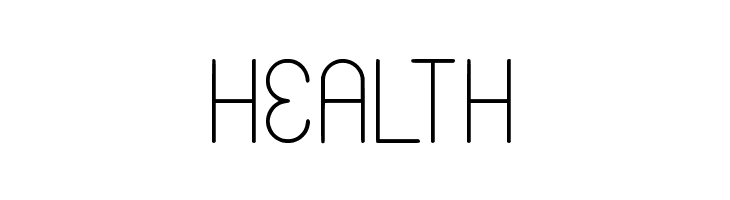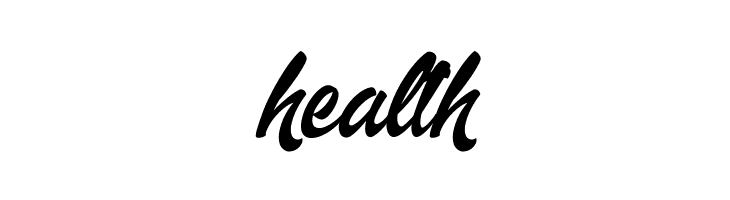
• aqualib
A playful, organic font with rounded, fluid characters and varying stroke thickness.
• Aquality Handmade
A handmade, artistic font with tall, narrow characters and a whimsical style.
• Aquamarina
A bold, condensed font with a modern and geometric style.
• aquamarine Medium
A playful, casual handwritten font with flowing, organic lines.
• Aquarilla
A modern, geometric font with elongated, narrow letterforms and consistent stroke width.
• Aquarius
A bold, playful script font with a whimsical, hand-drawn style.
• Aquate Script PERSONAL USE ONLY
A bold, flowing script font with elegant curves and a dynamic style.
• Aquatic Shellfish Regular
A modern, geometric font with thin, uniform lines and rounded edges.
• Aquawax Black
A bold, modern font with clean, geometric lines and strong visual impact.
• Aquawax Light
A modern, geometric sans-serif font with a clean and minimalistic design.